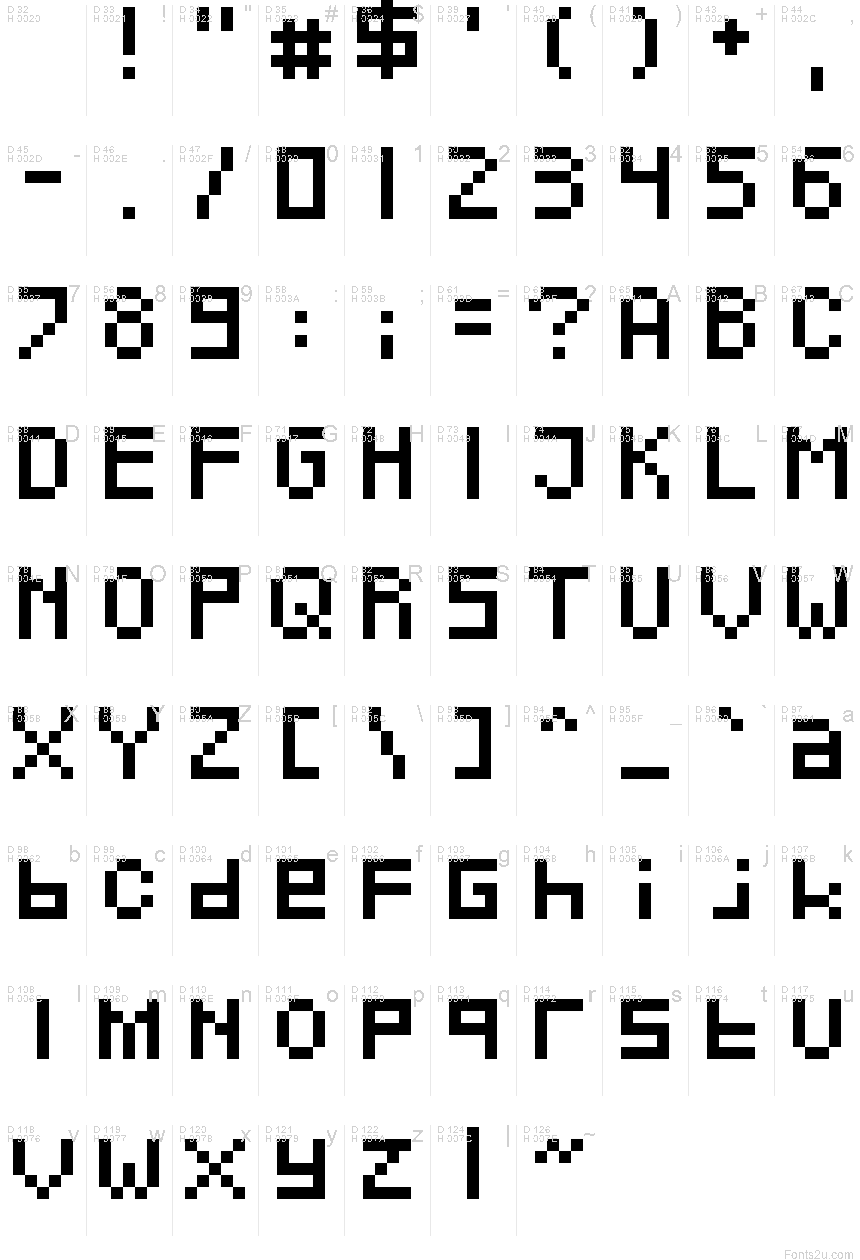
Pixeled Regular
“Pixeled” was built with FontStruct
Designer description: This font is influenced by various 8-bit retro sytle fonts with a retro feel.